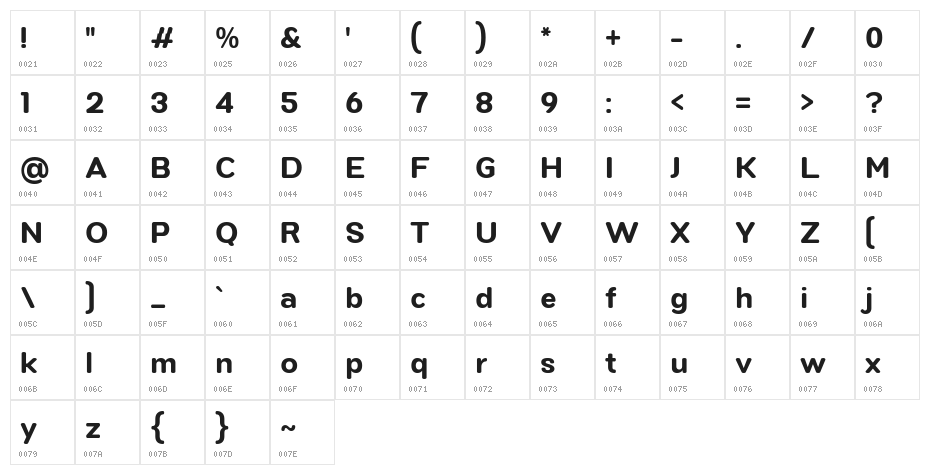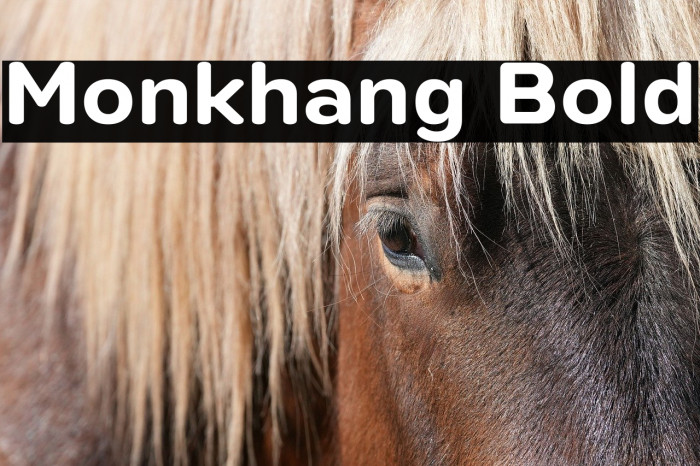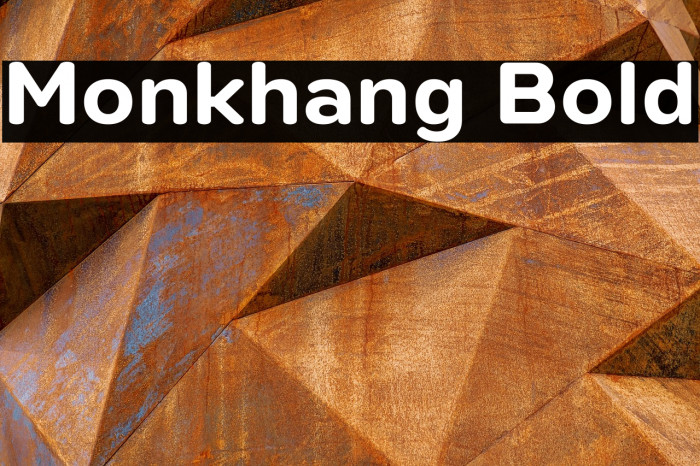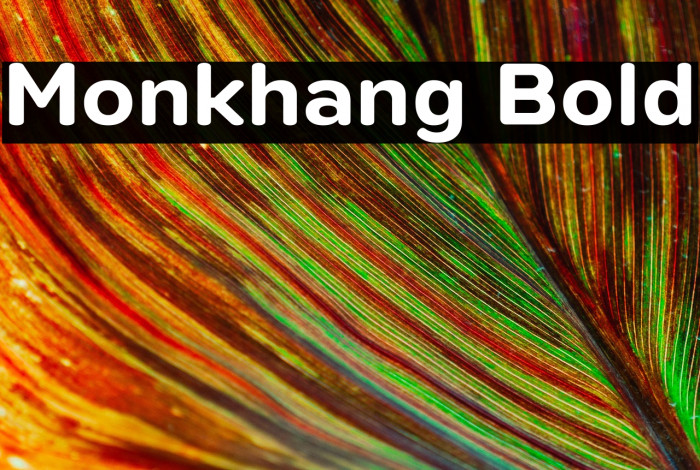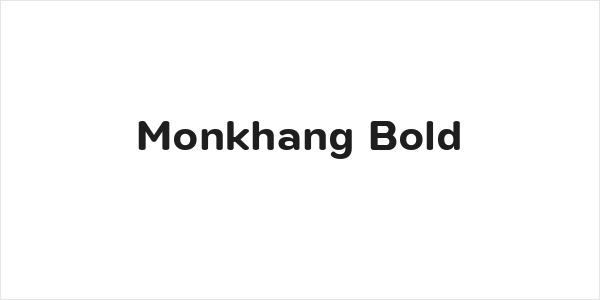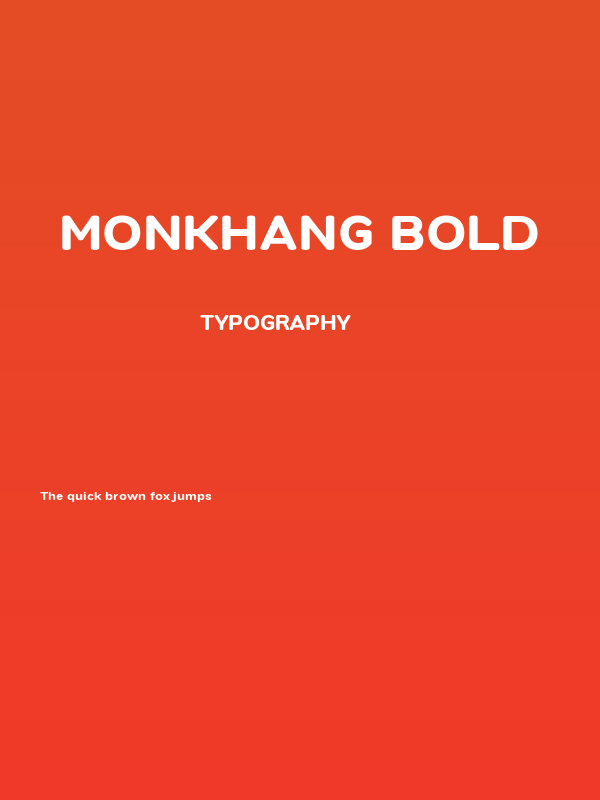
Monkhang Bold Font
Monkhang Bold Description
This font features a bold and modern sans-serif design with clean lines and a strong presence. The characters are evenly weighted, providing a uniform appearance that enhances readability. The uppercase and lowercase letters are well-proportioned, with rounded edges that add a friendly and approachable feel. The numerals are clear and distinct, making them ideal for both digital and print applications. Special characters are included, maintaining the same bold style, which ensures consistency across various uses. The overall design is versatile, suitable for a wide range of projects.
Use CaseHeadlines, Logos, Posters, Digital Media
Proposed ProjectsIdeal for branding, headlines, posters, and digital media where a strong, modern look is desired.